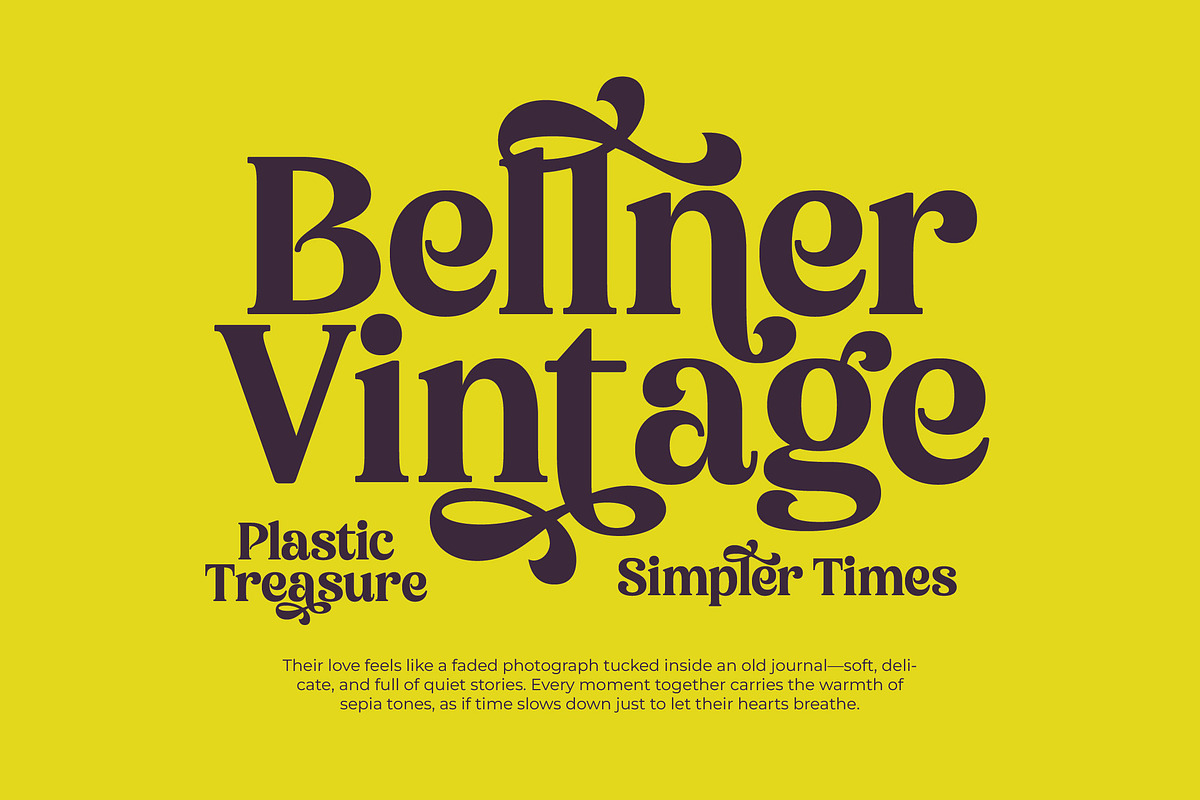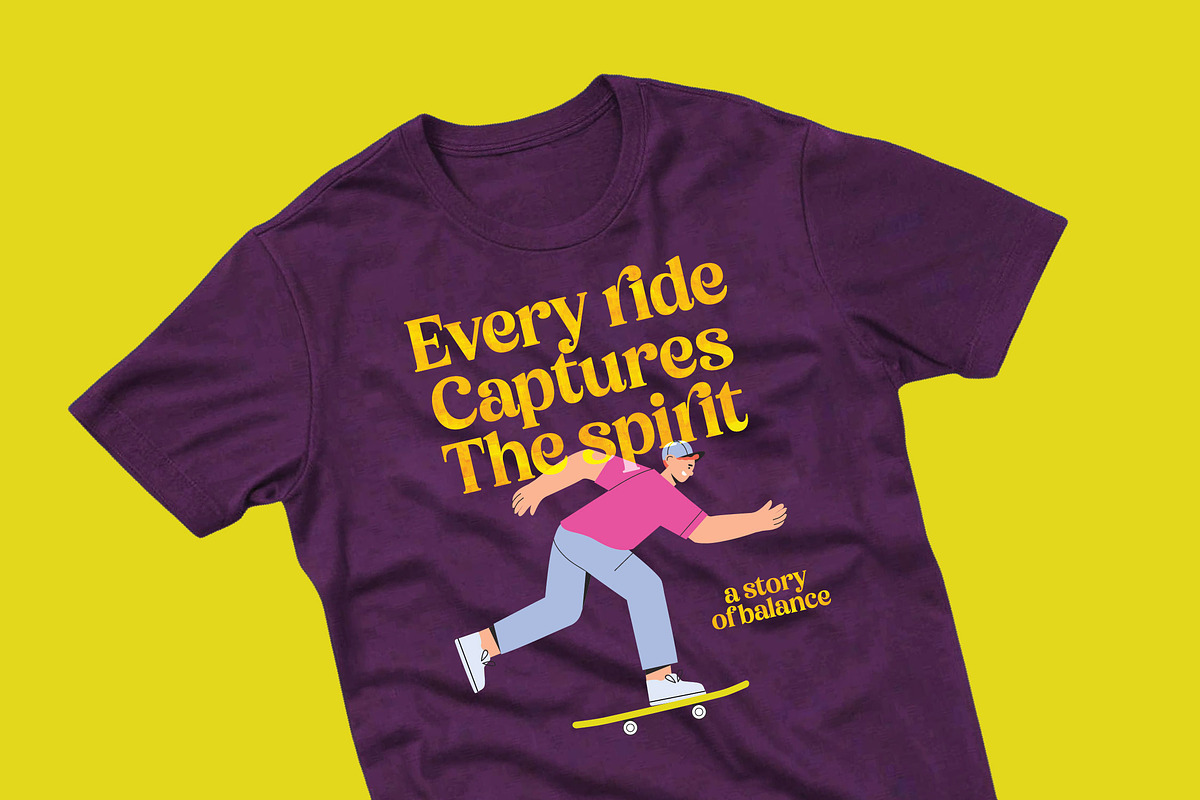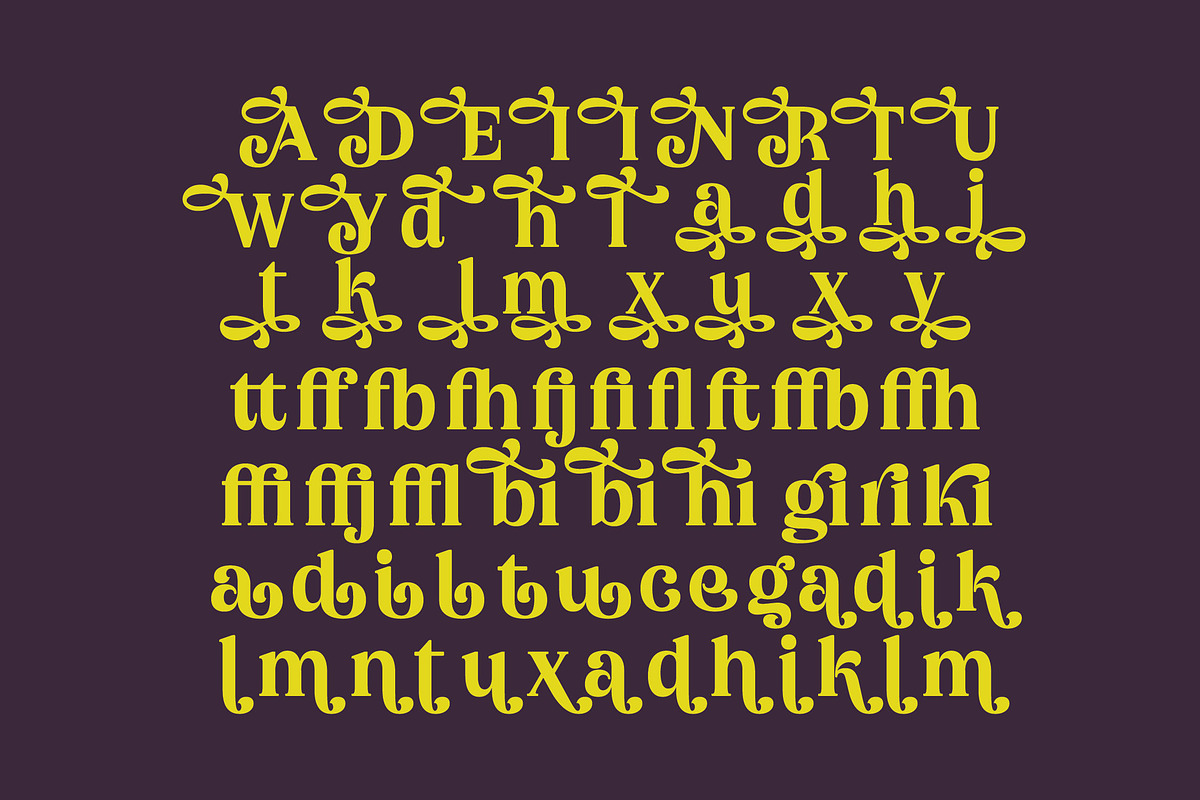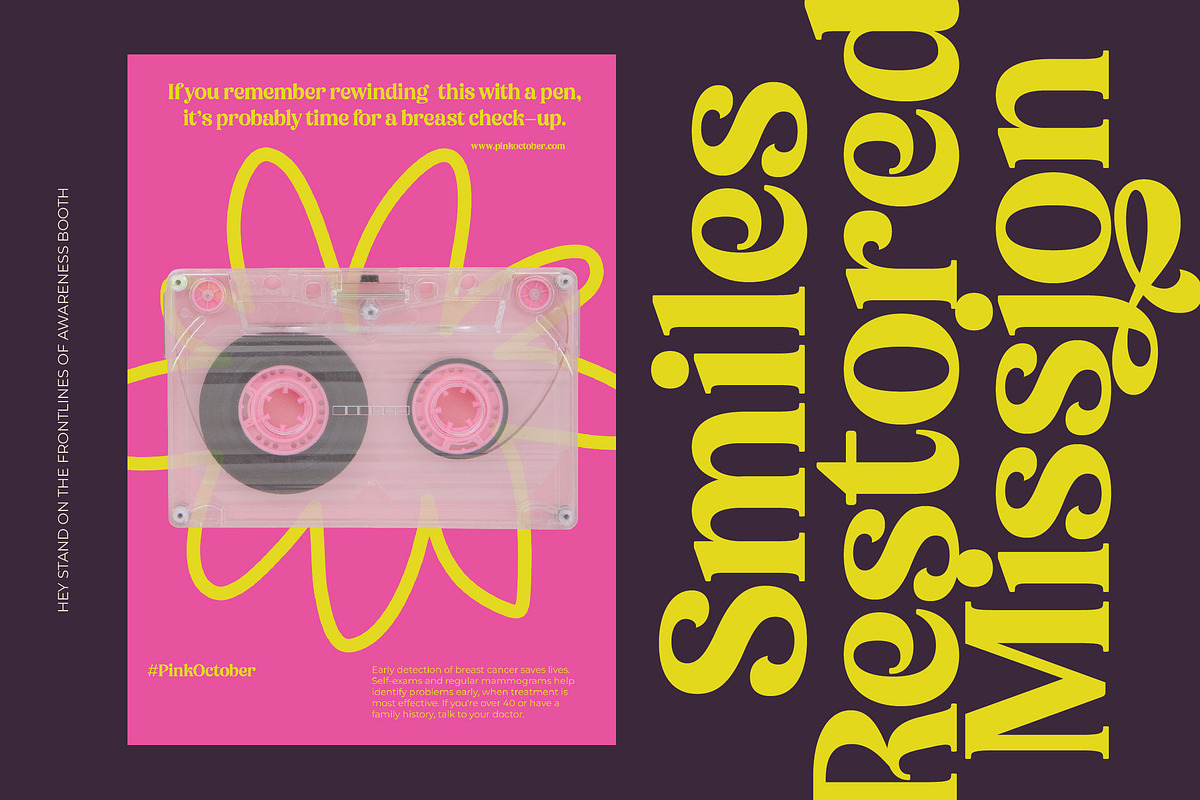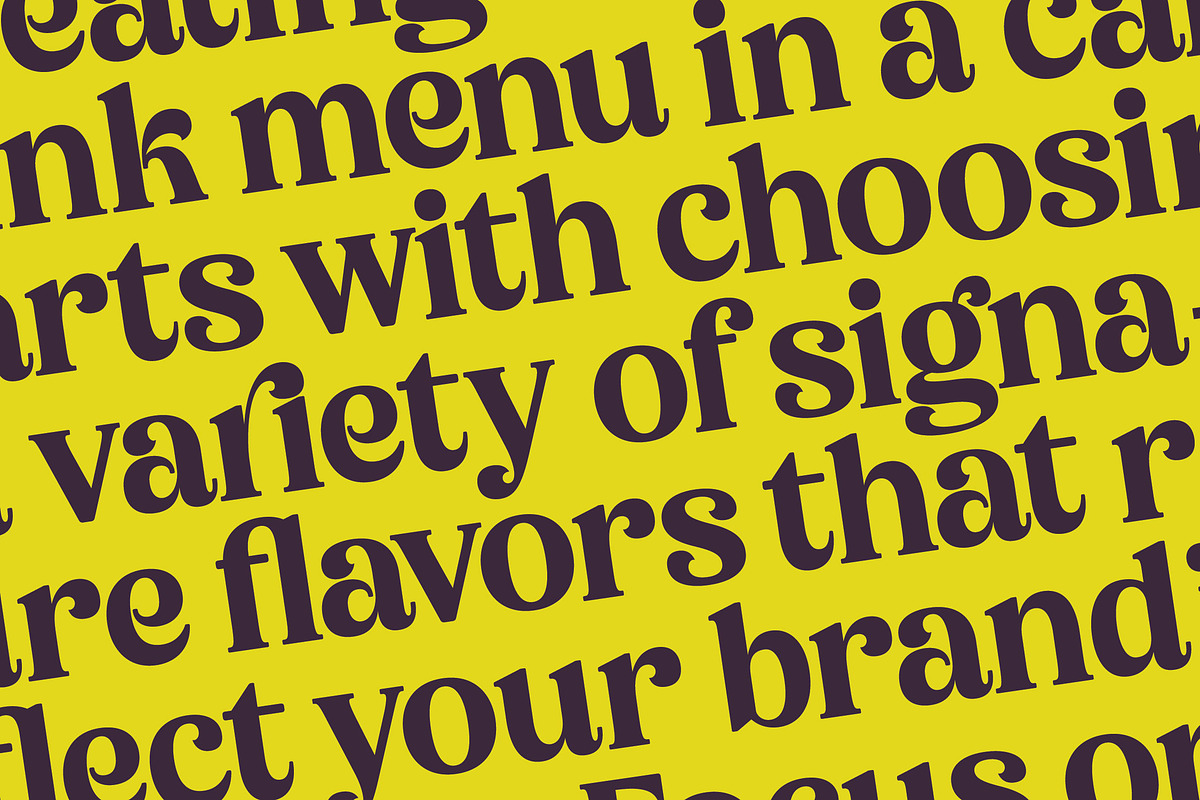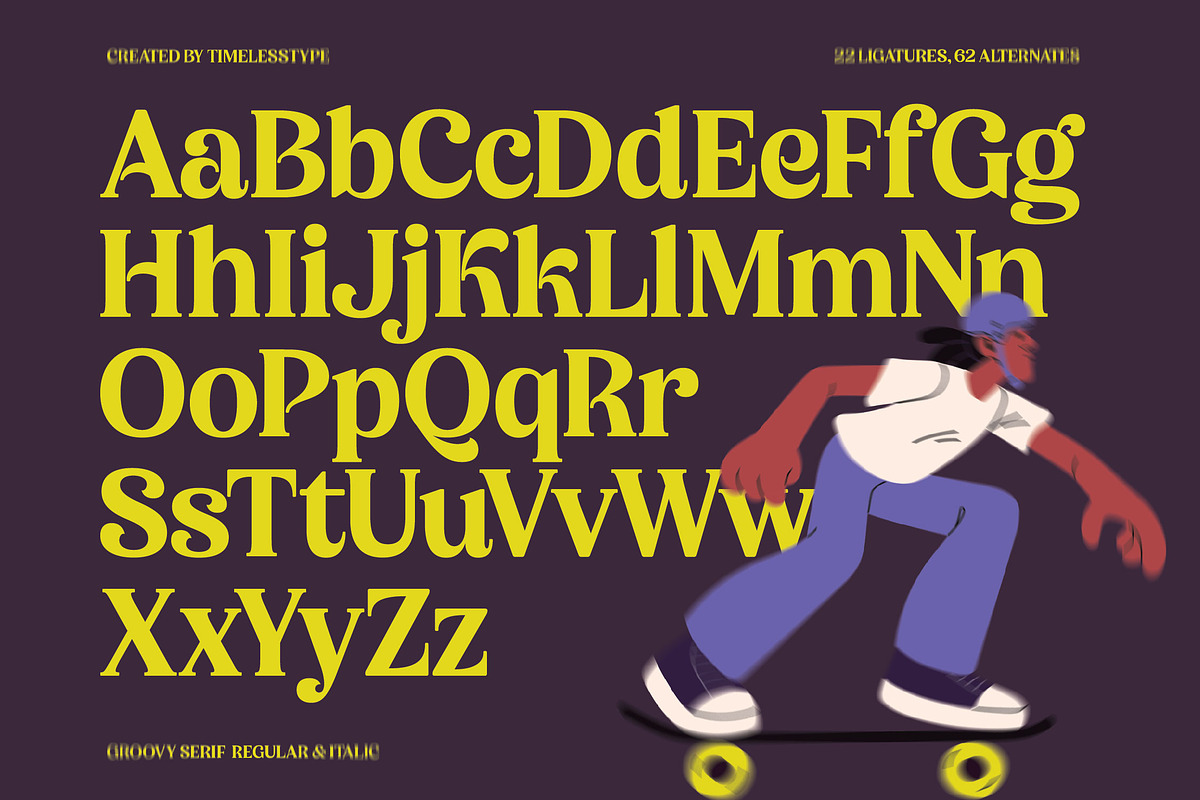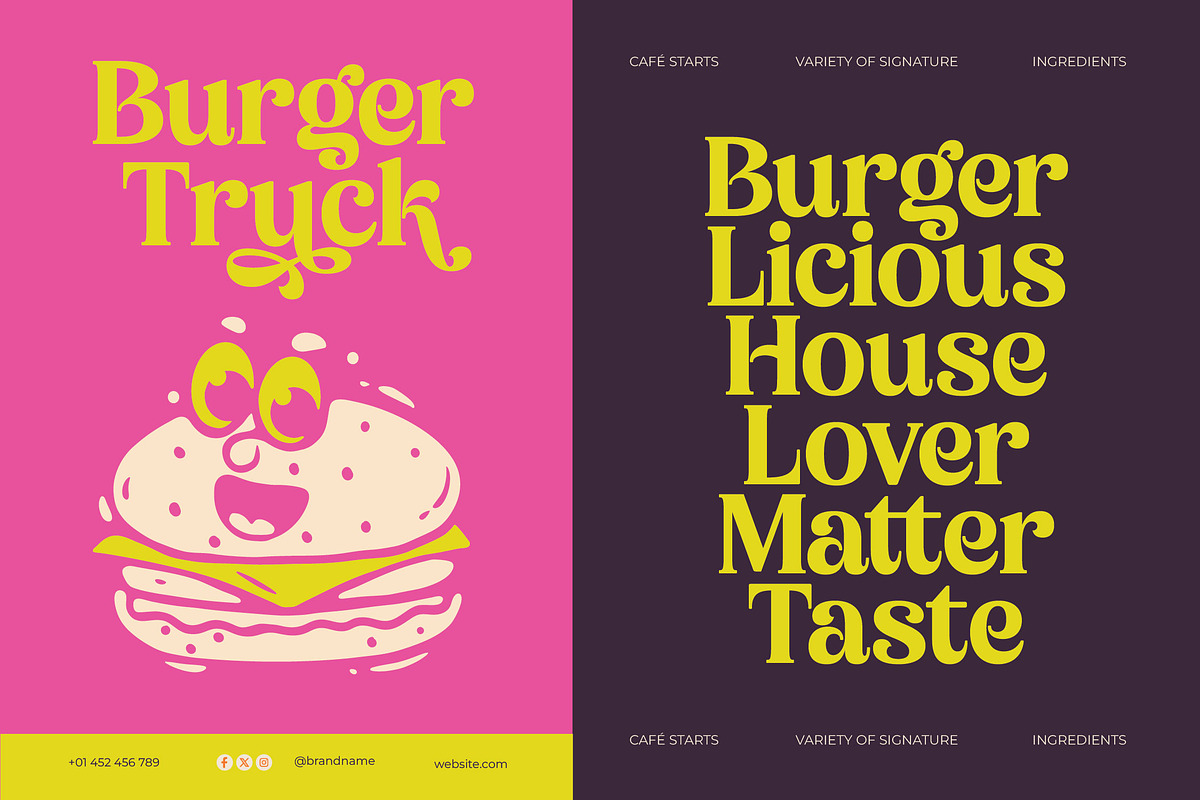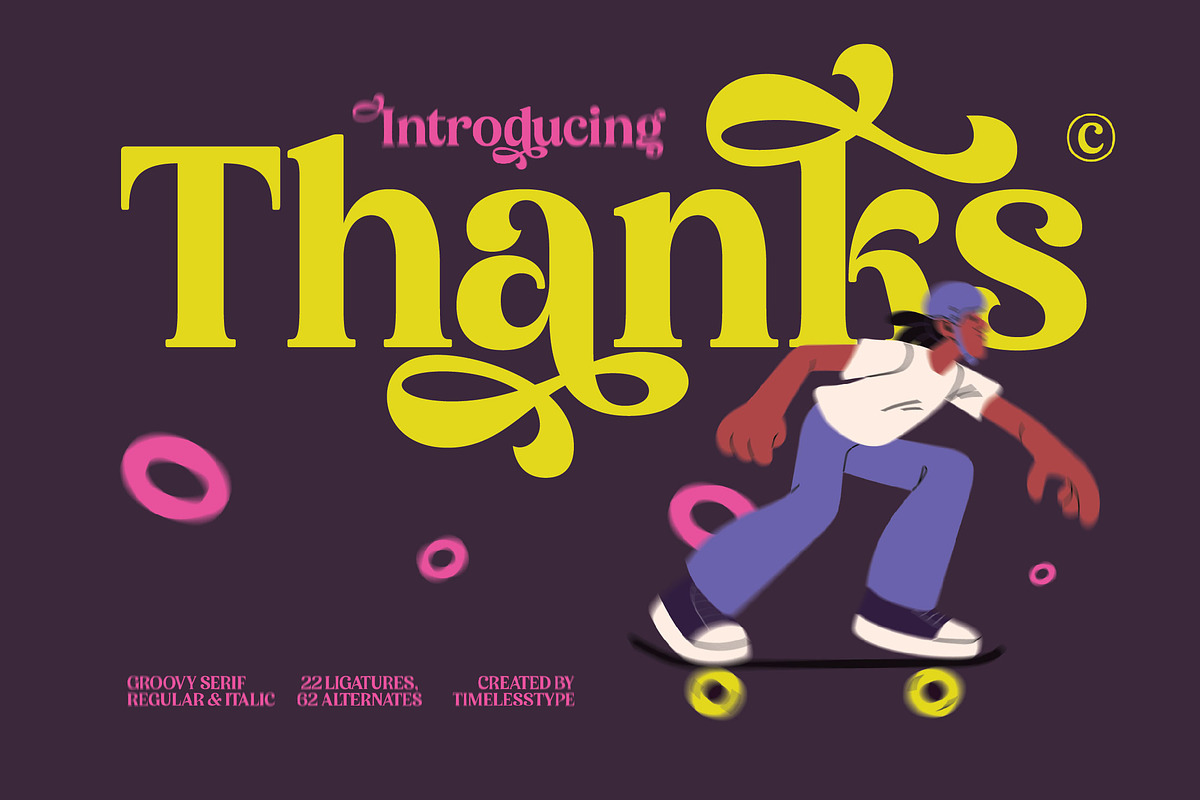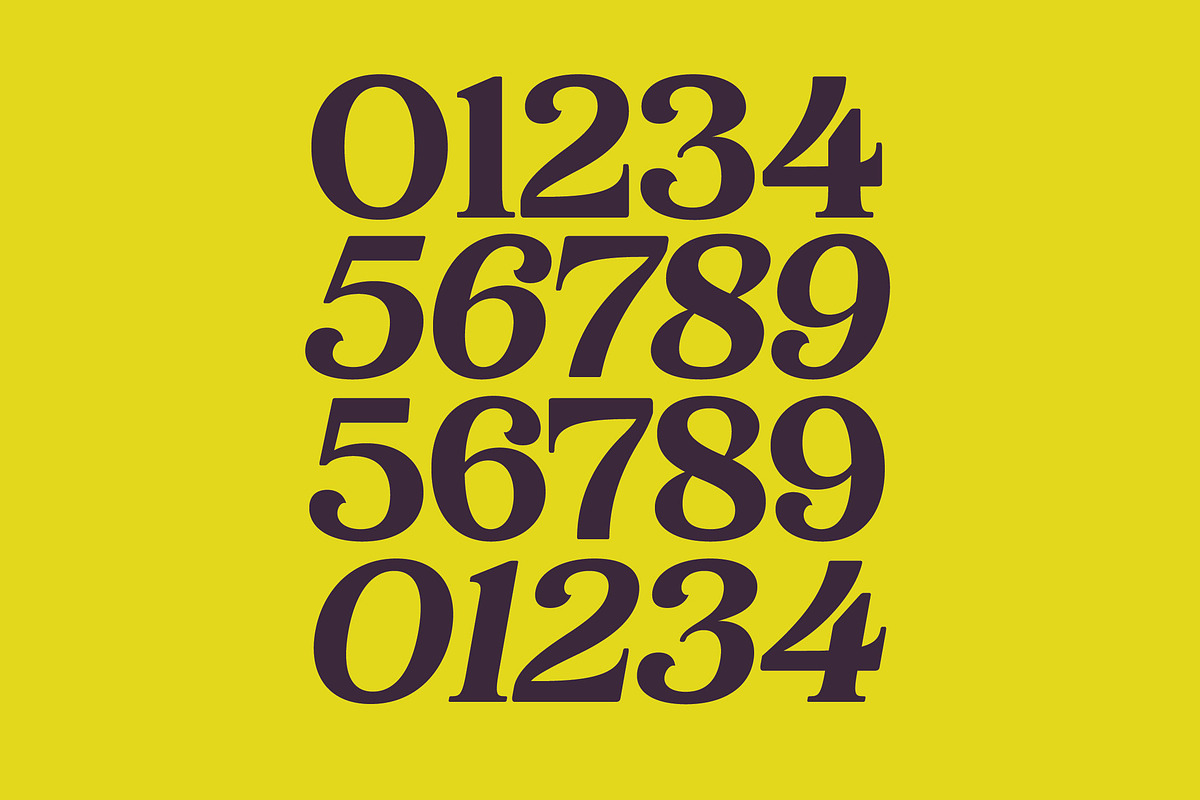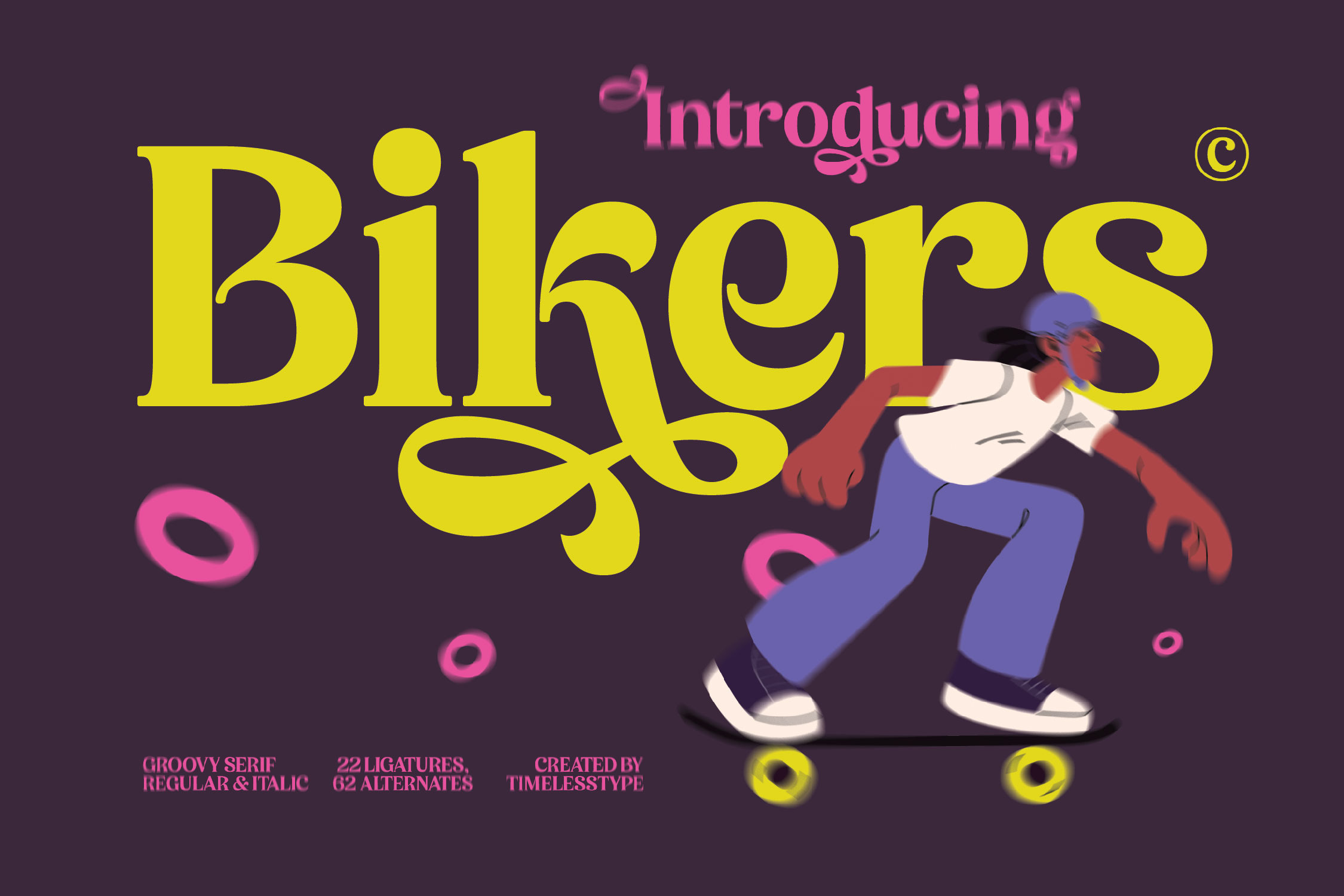
Bikers Groovy Retro Serif Font
Bikers captures the vibrant energy of the 1970s skate and surf culture, offering a bold visual statement that dances across the page with rhythmic fluidity. This expressive typeface is designed to turn heads and infuse your creative projects with an unmistakable sense of movement and nostalgia.
Inspired by the liquid lines of vintage psychedelic posters and the rebellious spirit of street culture, this font blends historical charm with a sharp contemporary edge. It evokes the feeling of sun-drenched afternoons and the effortless cool of mid-century graphic design.
With its heavy weights and playful curves, this modern serif display acts as a powerhouse for luxury typography. It provides a high-contrast serif look that ensures a massive branding impact, making it the perfect editorial font for designers who prioritize a bold, decorative aesthetic.
Tapping into the current modern serif trend, this typeface meets the rising demand for editorial display fonts that prioritize distinct personality over sterile minimalism. It represents the pinnacle of character-driven typography, allowing your layouts to break away from the mundane and embrace a retro-futuristic vibe.
From high-impact logo design to cohesive branding identities, this font shines in every creative application. It is equally at home in editorial layouts for fashion magazines, vibrant packaging for lifestyle products, or even adding a unique, stylish twist to a modern wedding suite.
The package includes both regular and italic styles, enriched with a deep library of ligatures and alternates to provide endless customization possibilities. With expansive swashes, multilingual support, and a full set of international characters, it is fully equipped for global design challenges.
Numerals
Punctuations (OpenType Standard)
Accents (Multilingual Characters)
Ligatures and Alternative Style Stylistic Set